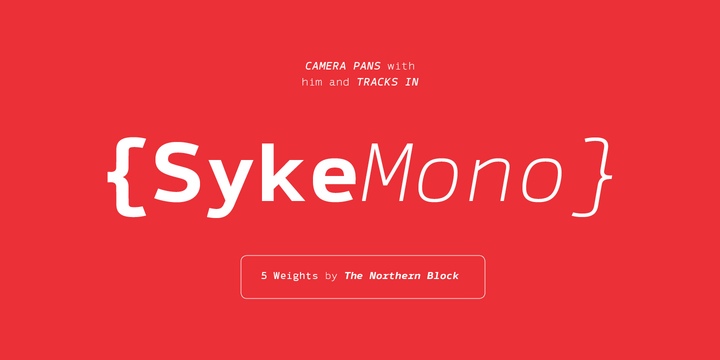
Syke Mono Font
Syke Mono Font is perfect for coding bootcamp branding, software development company logos, technical documentation, programming tutorial websites, cybersecurity firm materials, data analytics presentations, tech startup interfaces, developer conference graphics, command-line application designs, and computer science educational content. This precision-engineered typeface excels in applications where technical accuracy, digital clarity, and programming aesthetics are fundamental requirements.
What makes Syke Mono Font exciting is its perfect balance between monospaced functionality and contemporary design sophistication that elevates traditional coding fonts to new levels of visual appeal. The font features uniform character spacing with carefully optimized letterforms that maintain excellent readability in code environments while providing distinctive personality that sets it apart from standard terminal fonts. Its systematic approach to character design ensures consistent alignment and spacing that programmers demand while offering the visual interest that modern tech brands require.
The Syke Mono Font family typically includes multiple weights from Light to Bold, often featuring italic variations that maintain monospaced integrity for comprehensive coding applications. Many versions include extended character sets with programming symbols, mathematical operators, box-drawing characters, and technical notation marks essential for development work. Some collections feature alternate characters optimized for different coding languages and specialized symbols for data visualization and algorithmic documentation.